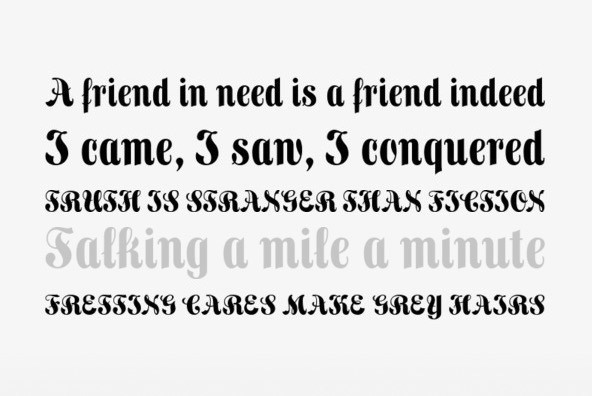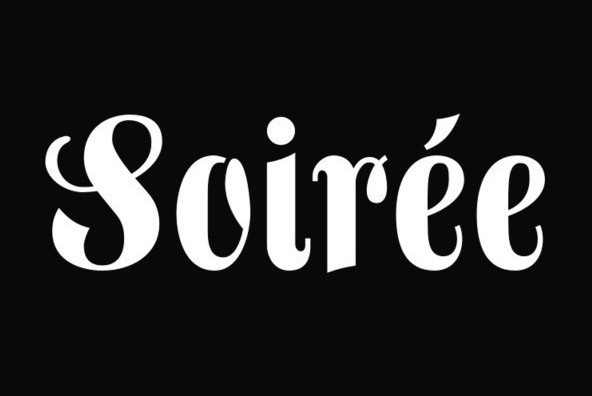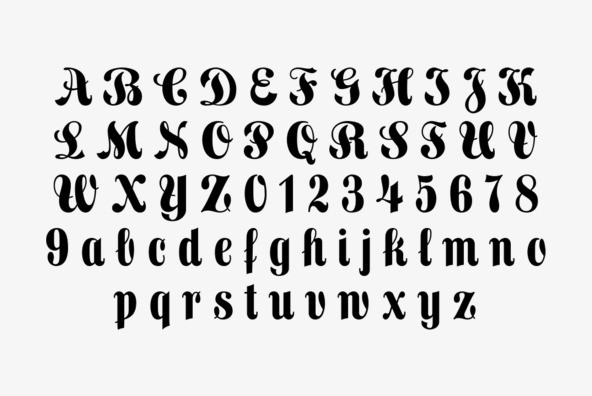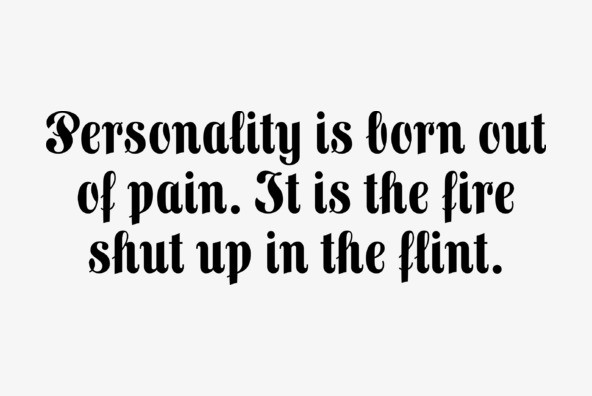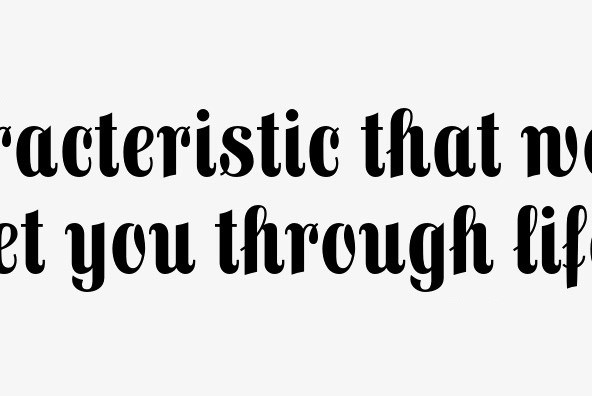
Frankenberg Pro Font
Frankenberg Pro
A treasure trove of typographic rarity, found in an old print shop in the Saxon town Frankenberg, now revived and carefully extended.